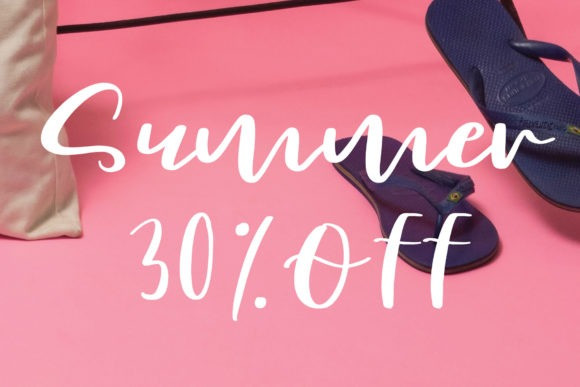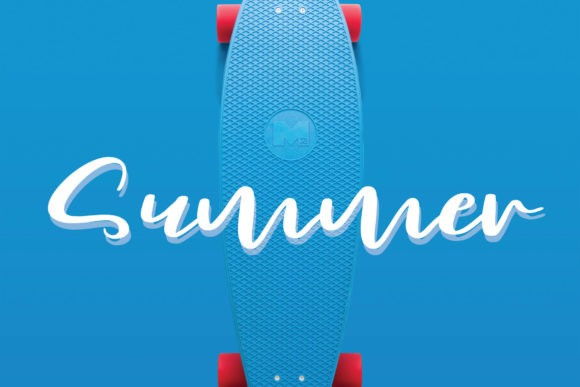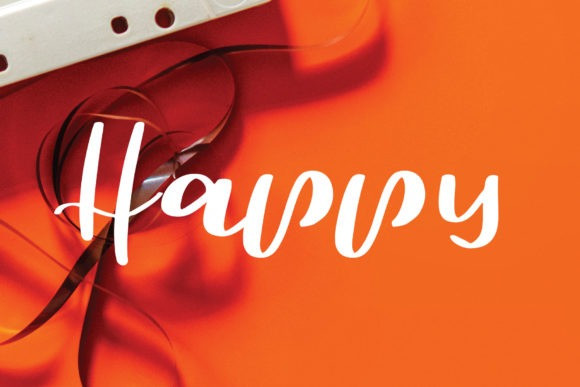
Kilatand Script Font
Introduce Kilatand, feels gorgeous and stylish. It looks beautiful on wedding invitations, thank you cards, quotes, greeting cards, logos, business cards and every other design which needs a customized touch.